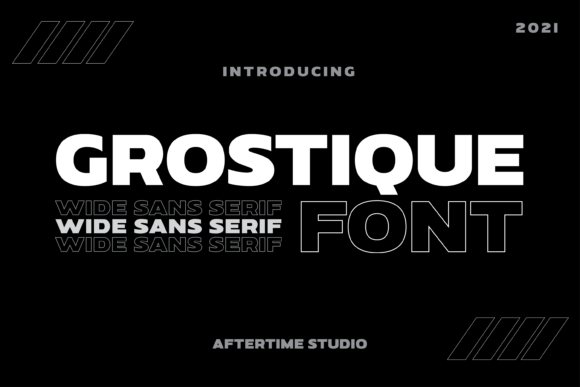
Introducing Grostique, the font that embodies strength and confidence, ready to elevate your designs to new heights. Crafted by AftertimeStudio, this sans serif masterpiece exudes a boldness that commands attention, making it the perfect choice for projects that demand an unforgettable impact.
Immerse yourself in the world of streetwear, where Grostique reigns supreme. Its sharp angles and unwavering lines perfectly capture the edgy aesthetic, making it the ideal companion for logos that demand instant recognition.
But Grostique's versatility extends far beyond the realm of fashion. Its commanding presence shines through in logo branding, effortlessly conveying authority and professionalism. Editorial designs take on a new life with Grostique, its bold strokes adding weight to every word, ensuring your message resonates with unparalleled impact.
Unleash the power of Grostique in your music posters, where its energy and drive amplify the rhythm of your tunes. Modern advertising campaigns find a perfect match in Grostique, its ability to cut through the clutter and leave a lasting impression.
Grostique is more than just a font; it's a statement of intent, a declaration of boldness. Its sharp edges and unwavering lines embody the spirit of those who dare to stand out, to make their mark on the world.
With Grostique in your design arsenal, you unlock the power to create projects that turn heads, ignite conversations, and inspire action. Embrace the boldness, embrace the power, and let Grostique guide your designs to greatness.